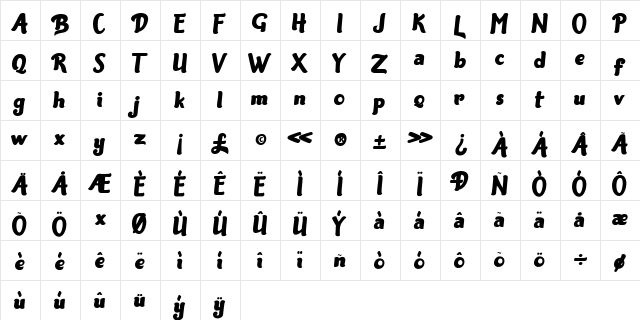
Bannie Regular
| Foundry | DianHaniff |
| Designer | Dian Haniffan Hadi |
Design Context for Bannie Typeface
Bannie is a composed and adaptable typeface that performs quietly and consistently across a wide range of design contexts.